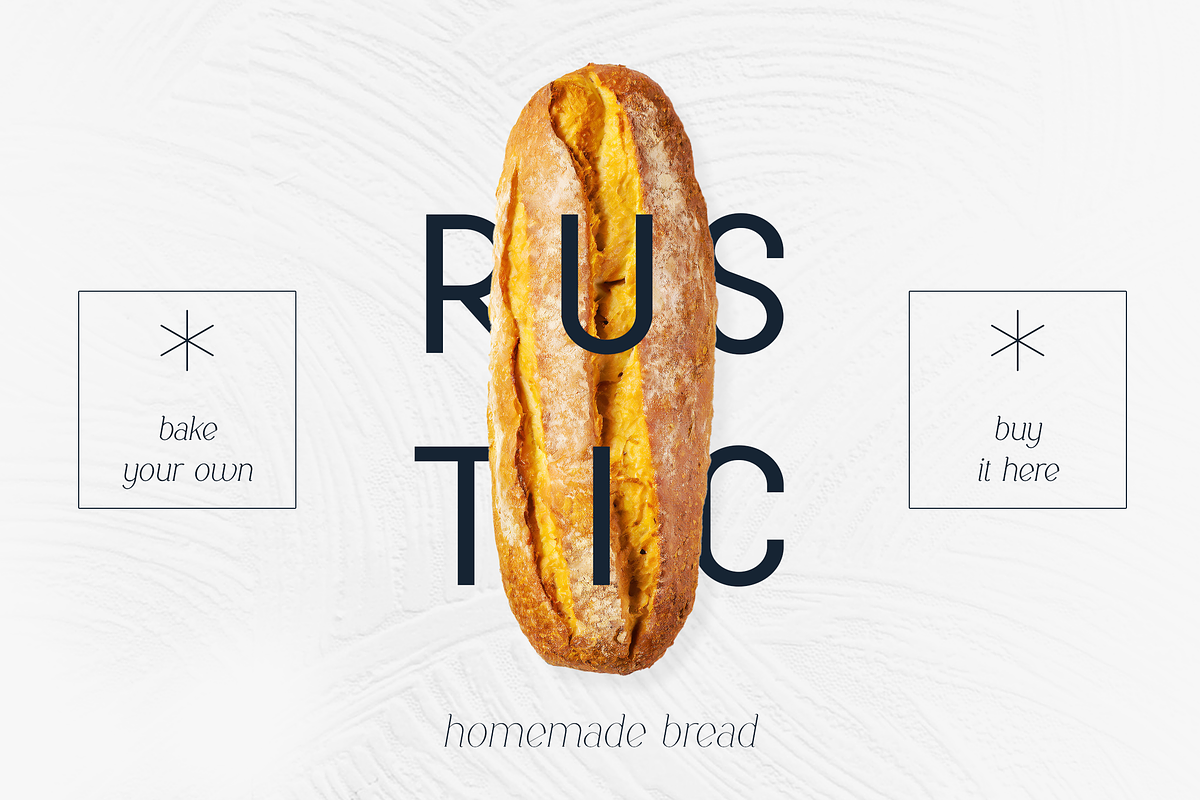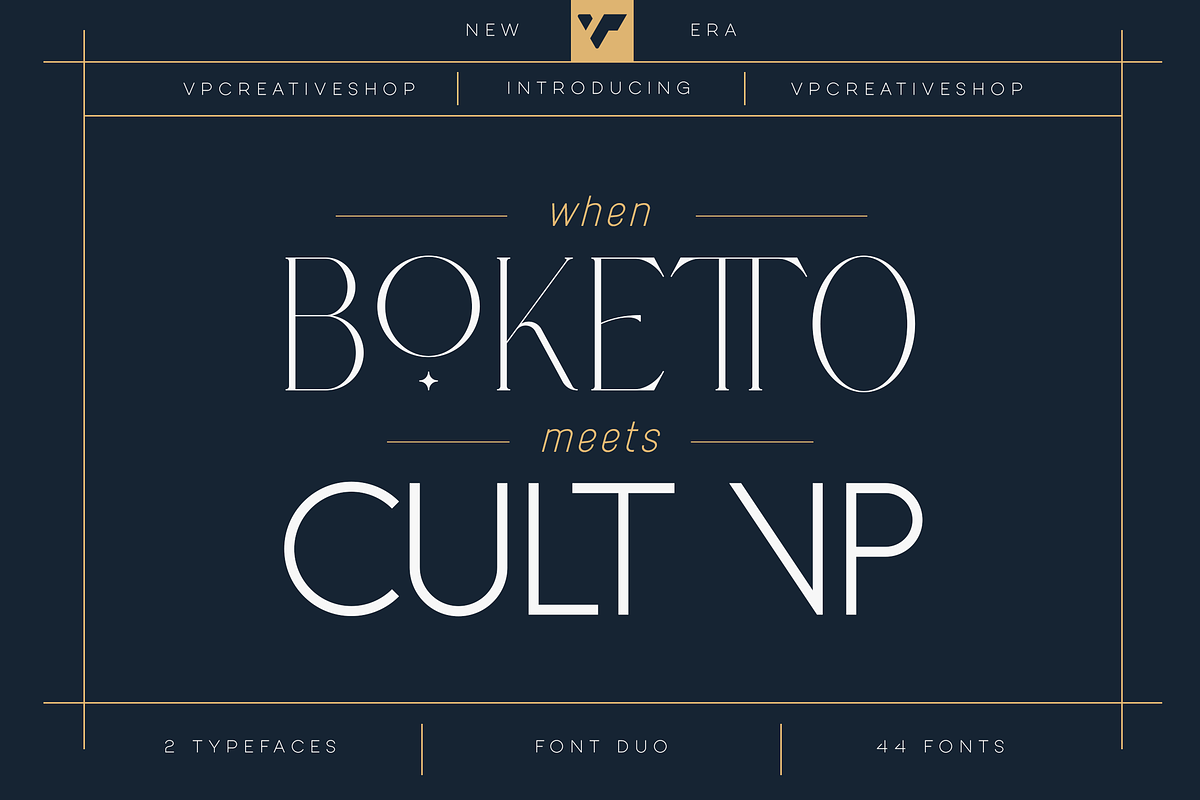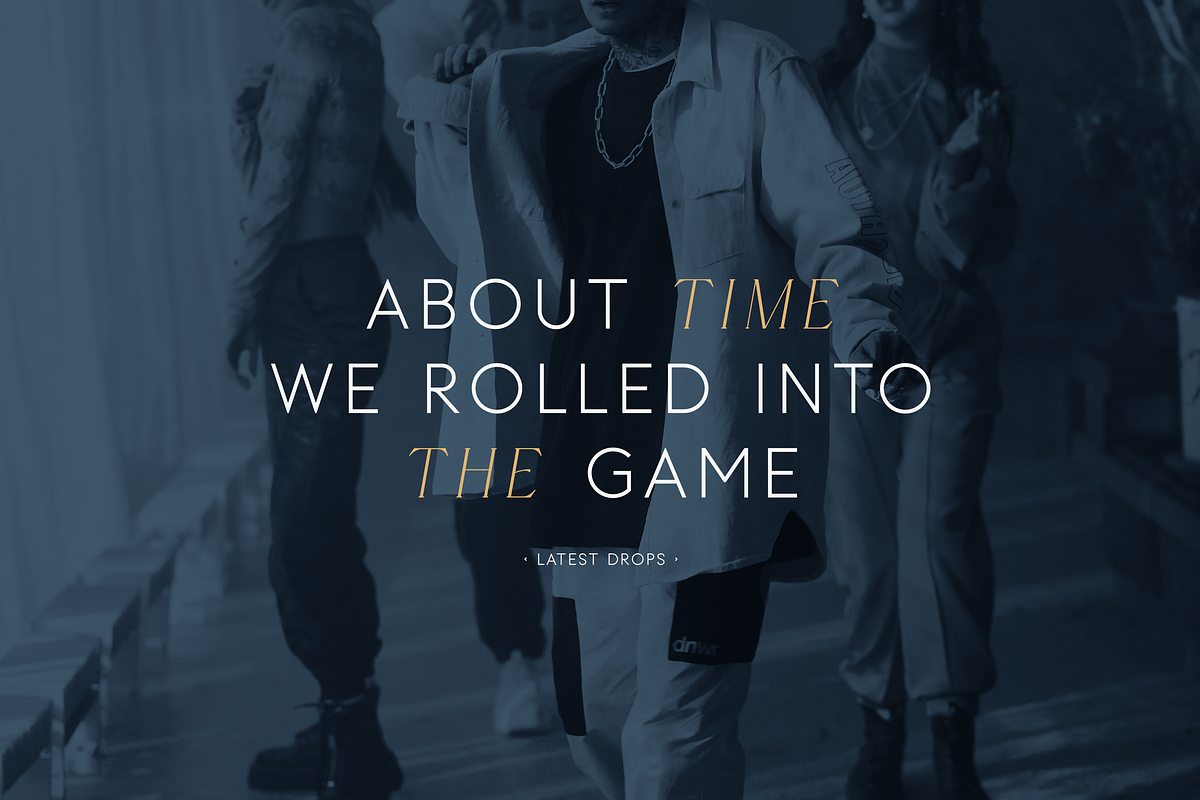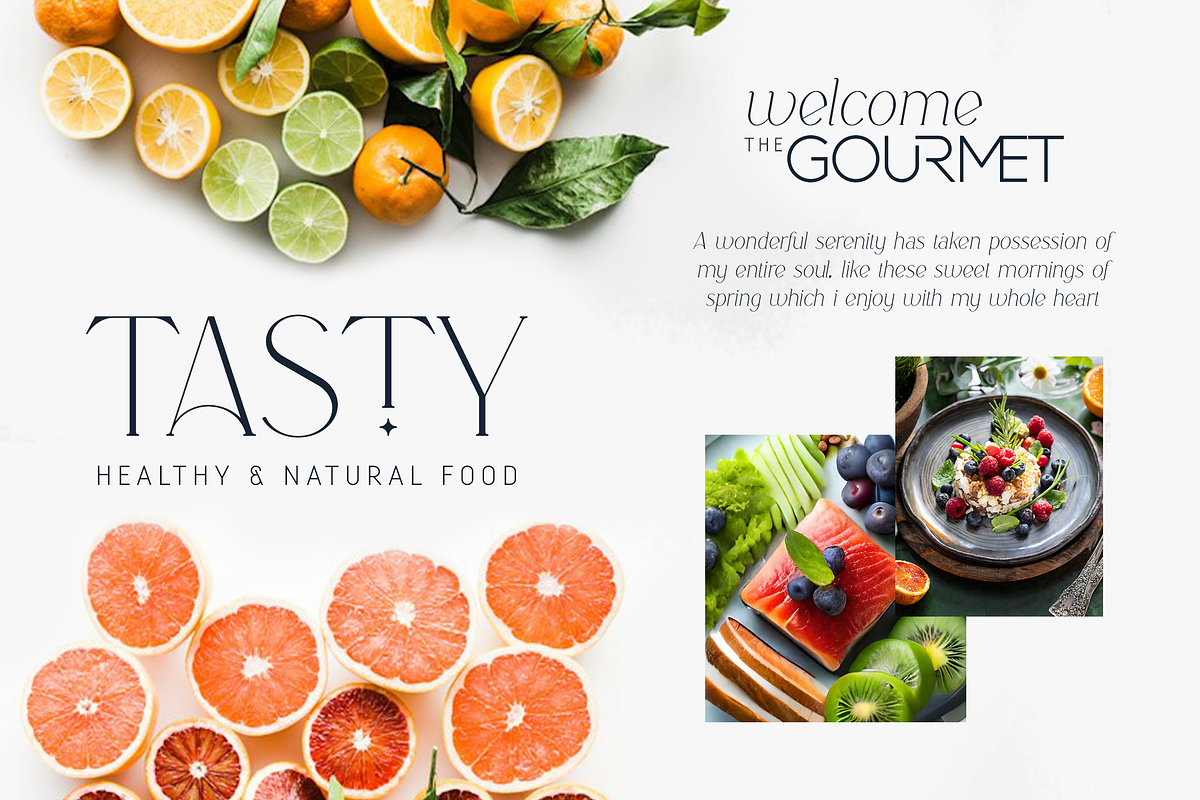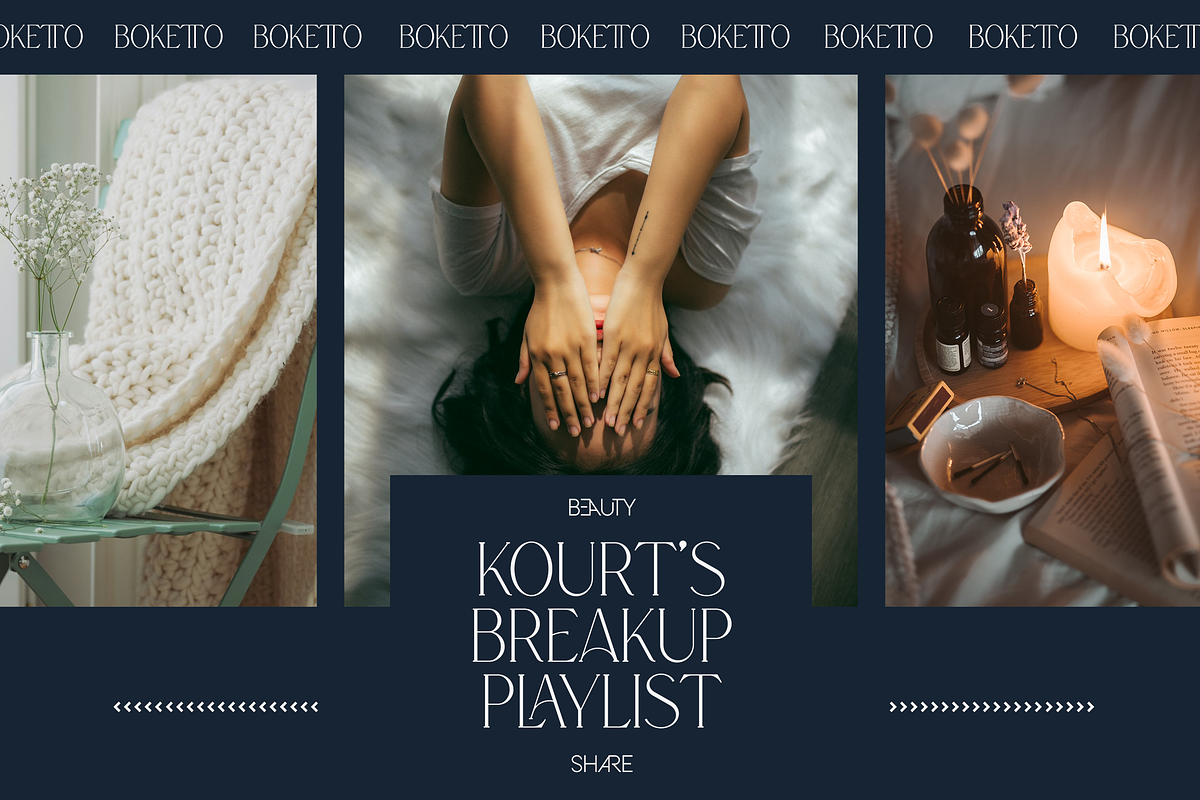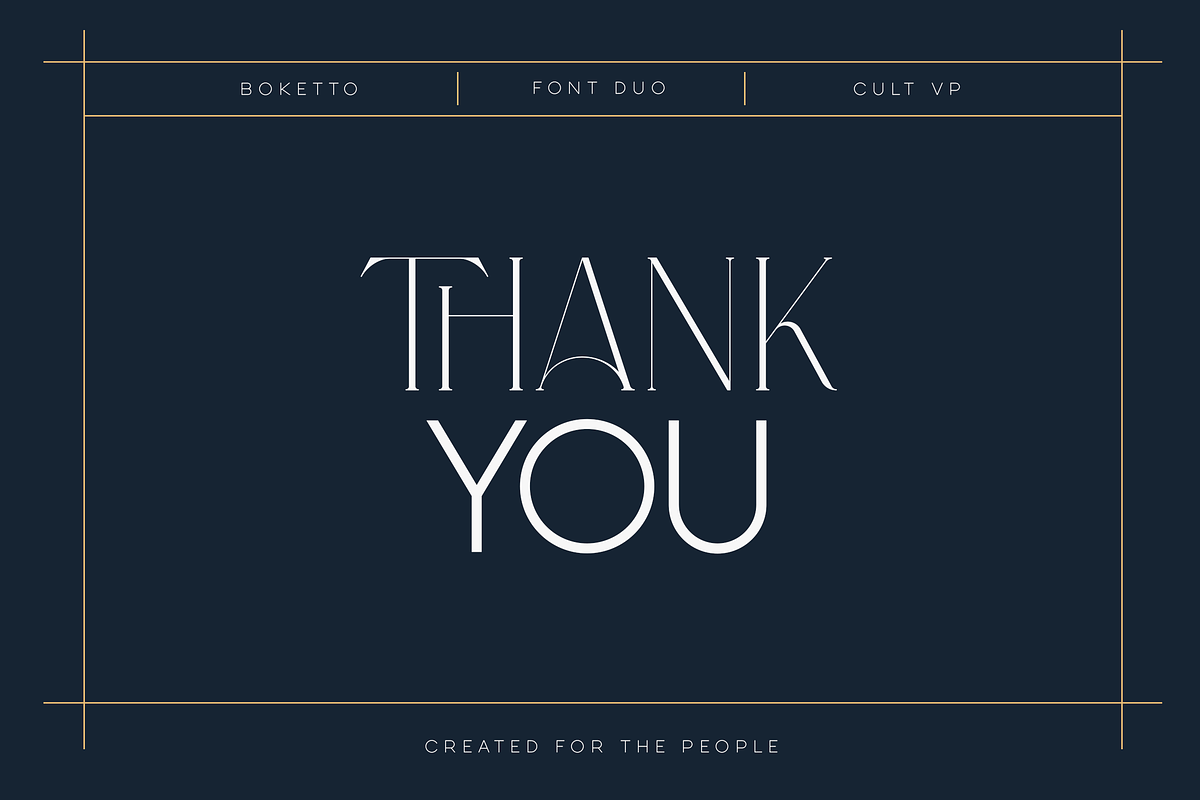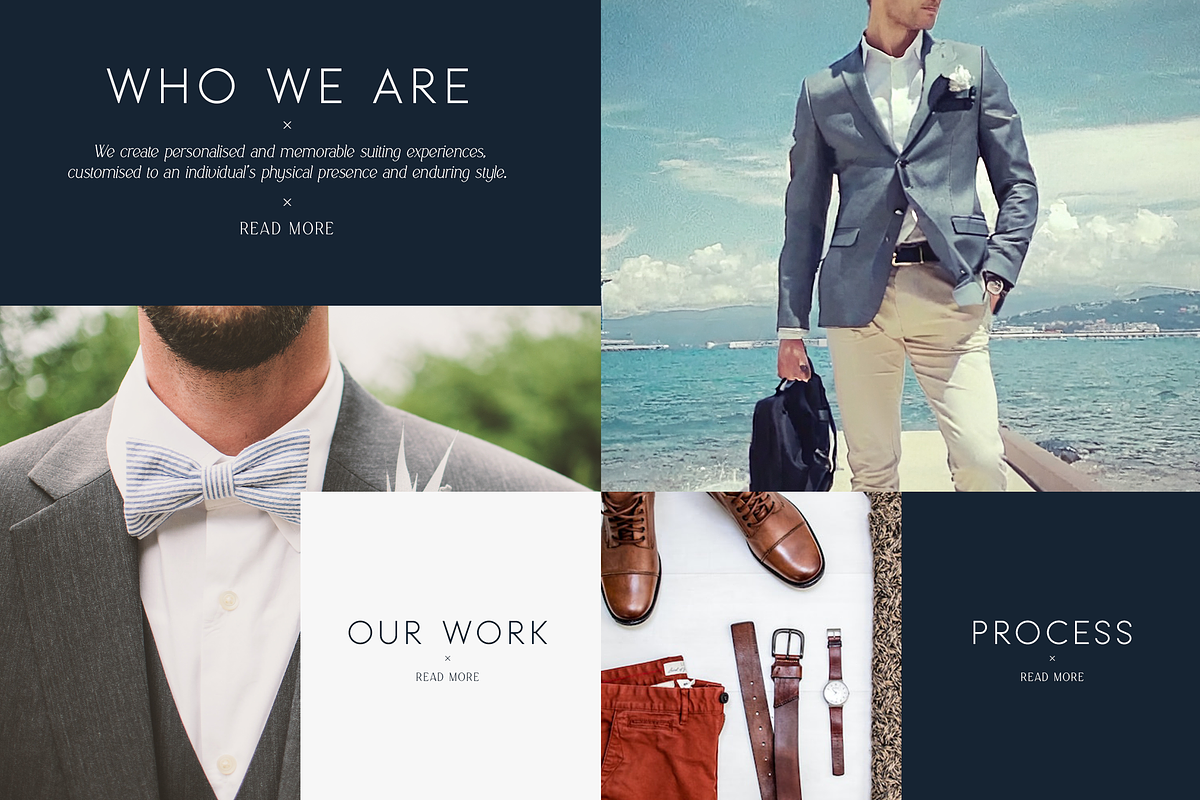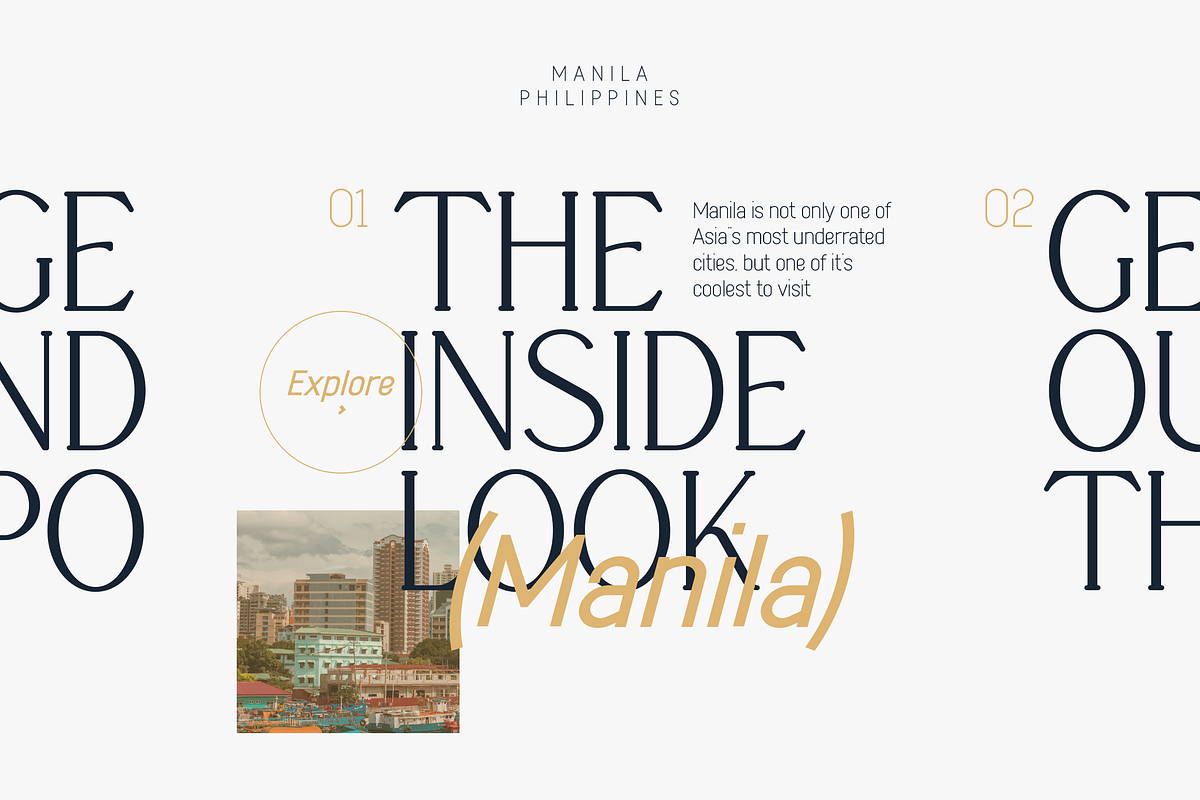
When Boketto meets Cult VP 44 fonts
When Boketto gracefully converges with Cult VP, an unparalleled font duo is born, fusing elegance with modernity. This dynamic pairing boasts a seamless blend of 44 exquisite styles, combining Boketto's versatile 24 font styles, including its chic variations and italics, with Cult VP's 20 contemporary renditions. With comprehensive support for 87 languages and an array of alternate characters and ligature glyphs, this duo offers a gateway to a truly distinctive and inspiring typographic journey, unlocking a realm where sophistication meets creative innovation.
Boketto features
- Uppercase, lowercase, numeral, punctuation & Symbol
- ligature glyphs
- alternates
- Regular ( hairline, extra light, light, regular, semi bold, bold, extra bold, black )
- Styled ( hairline, extra light, light, regular, semi bold, bold, extra bold, black )
- Italic ( hairline, extra light, light, regular, semi bold, bold, extra bold, black )
- Multilingual support - 87 languages
Cult VP features
- Uppercase, lowercase, numeral, punctuation & Symbol
- ligature glyphs
- Branding font - regular and italic
- 9 sans serif weights - regular and italics